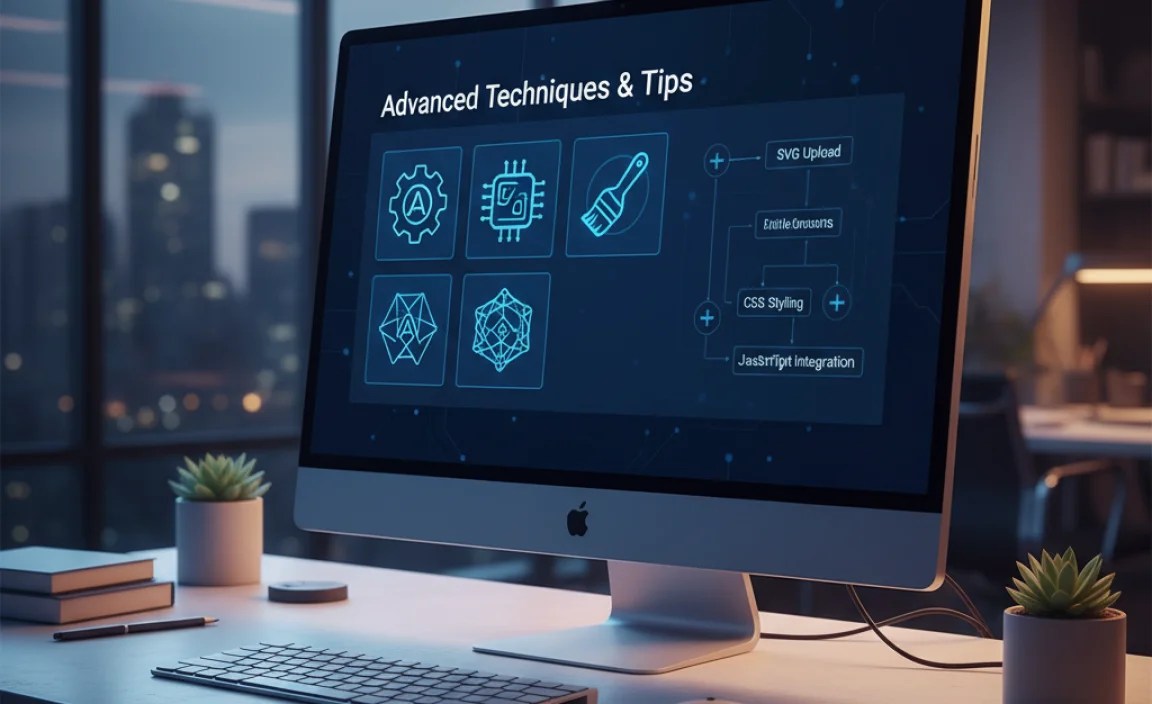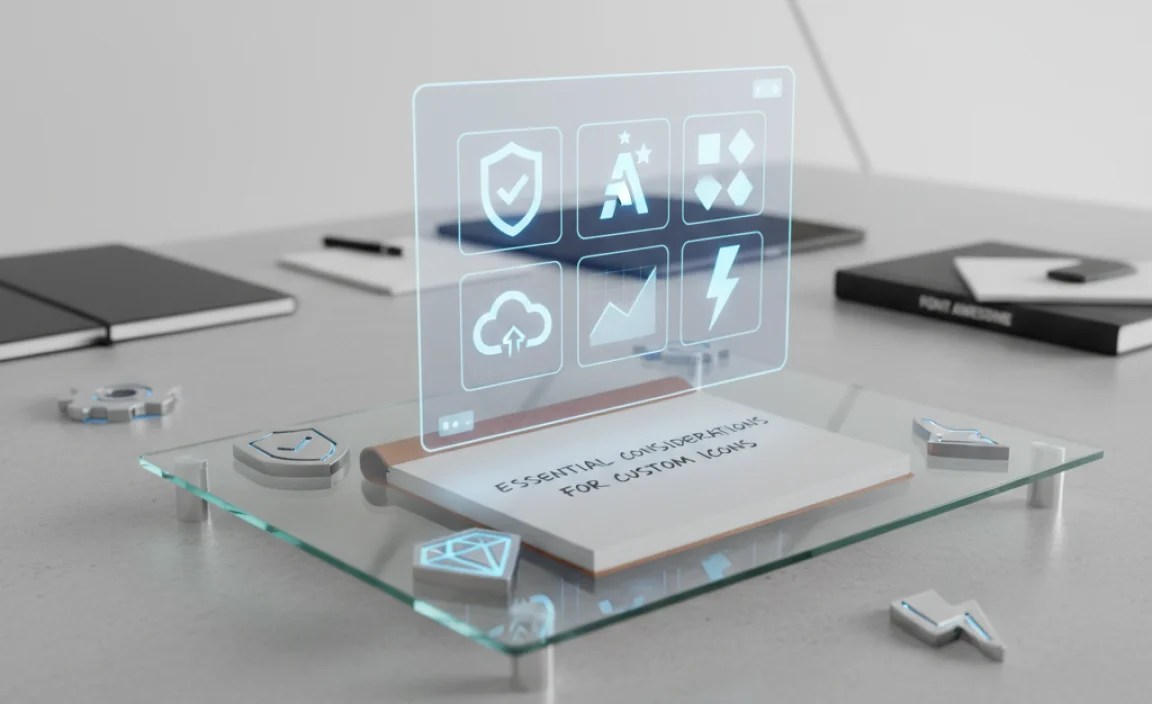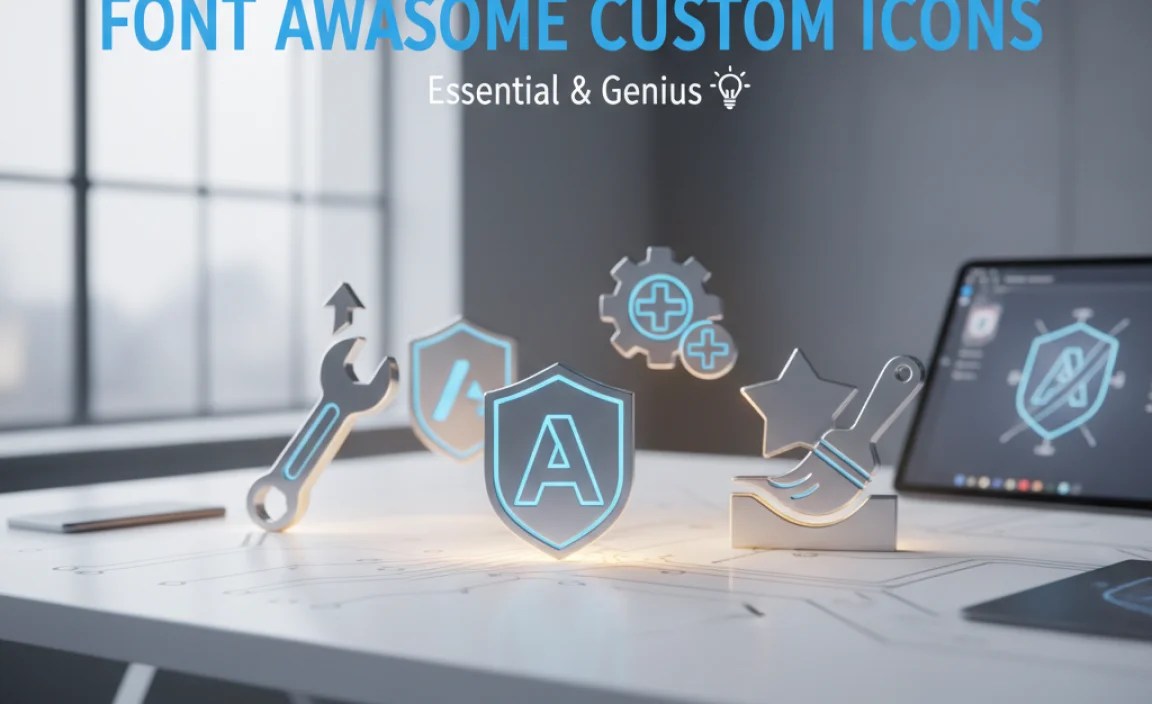
Font Awesome custom icons let you extend your brand’s visual language beyond the standard library. You can easily upload your own SVG icons, or modify existing ones, to create a unique, cohesive, and instantly recognizable look for your website or project. It’s a powerful way to add personality and professionalism with minimal hassle, ensuring your design truly stands out.
Using familiar icons is great for quick recognition. Think about a shopping cart for e-commerce or a gear for settings. But what happens when your project needs something unique? Maybe it’s a special symbol for your company’s core value, or a graphic that perfectly represents a niche service. This is where Font Awesome custom icons shine. They offer a way to break free from the pre-made and inject your own brand identity directly into your design elements. It can feel a bit daunting at first, wondering how to add your own flair to such a popular tool. But don’t worry, it’s simpler than you might think! We’ll walk through exactly how to create and integrate your very own Font Awesome custom icons, making your designs truly yours.
Why Go Custom with Font Awesome Icons?
Font Awesome is a fantastic resource, packed with thousands of icons that cover almost any need. They’re easy to use, scalable, and consistent in style. However, relying solely on the existing library can sometimes lead to a generic look, especially if many other sites are using the same popular icons. This is where the “essential” and “genius” aspects of custom icons come into play.
When you create custom icons, you’re doing more than just adding a graphic; you’re building a visual language that’s uniquely yours. This is incredibly beneficial for branding, user experience, and overall design cohesion.
1. Unmatched Brand Consistency
Your brand is built on more than just a logo and colors; it’s about a consistent feeling and visual story. Custom icons allow you to perfectly match your brand’s aesthetic, whether it’s sleek and modern, playful and whimsical, or something entirely different. This reinforces your brand identity every time a user interacts with an icon.
2. Differentiating Your Project
In a crowded digital space, standing out is crucial. Unique icons can make your website memorable and professional. They signal attention to detail and a commitment to originality that resonates with users.
3. Enhancing User Experience
Sometimes, standard icons just don’t quite cut it. A custom icon can be designed to intuitively represent a specific function or piece of content, leading to clearer navigation and a more intuitive user experience. This is particularly true for specialized websites or applications.
4. Creative Freedom and Expression
Design is about creativity! Custom icons unlock a world of possibilities, allowing you to visually represent abstract concepts, unique features, or even inside jokes that only your audience will understand. It’s a way to add personality and flair without compromising clarity.
5. Future-Proofing Your Design
As your brand evolves, your icons can evolve with it. Having the ability to create and manage your own icon set means you’re not tied to external updates or changes that might not align with your vision.
Understanding the Basics: Font Awesome and SVGs
Before we dive into creating custom icons, let’s touch upon the technology that makes it all possible: Scalable Vector Graphics (SVGs).
Font Awesome primarily uses SVGs for its icons. Unlike raster images (like JPEGs or PNGs) which are made of pixels and can look blurry when resized, SVGs are vector-based. This means they are defined by mathematical equations that describe lines, curves, and shapes. The benefit? SVGs can be scaled to any size without losing quality, making them perfect for responsive web design and crisp display on any device.
What is an SVG?
SVG stands for Scalable Vector Graphic. It’s an XML-based vector image format for two-dimensional graphics with support for interactivity and animation. Because they are resolution-independent, they are ideal for various applications, from small icons to large-scale graphics.
Why SVGs are Ideal for Icons
- Scalability: They look sharp at any size or zoom level.
- Smaller File Sizes: Often smaller than raster equivalents, leading to faster loading times.
- Editable: SVGs contain code that can be edited, allowing for easy modification of colors, shapes, and paths.
- Accessible: They can be styled with CSS and manipulated with JavaScript.
- Search Engine Friendly: Text within SVGs can be indexed by search engines.
Font Awesome’s core is built around these principles, offering a vast library of SVG icons. When you create custom icons for Font Awesome, you’ll typically be working with SVG files.
Methods for Creating Font Awesome Custom Icons
There are two main avenues for creating custom icons that integrate seamlessly with Font Awesome: uploading your own SVG files or creating a custom Font Awesome kit with your desired icons.
Method 1: Uploading Your Own SVG Files
This is the most direct way to use your own graphics. If you have an existing SVG file or can create one using design software, you can upload it to your Font Awesome account. This allows you to treat your custom icon just like any other Font Awesome icon, using its familiar syntax.
| Uniqueness | Can be common; many other sites use the same icons. | Completely unique, enhancing brand identity and differentiation. |
| Branding Alignment | May or may not perfectly match your brand’s visual style. | Designed to precisely match your brand’s aesthetic, colors, and tone. |
| Design Effort | Minimal to none; just select and implement. | Requires design time, skill, and potentially software purchase/subscription. |
| Implementation | Simple selection from library. | Upload SVG, name icon, then |